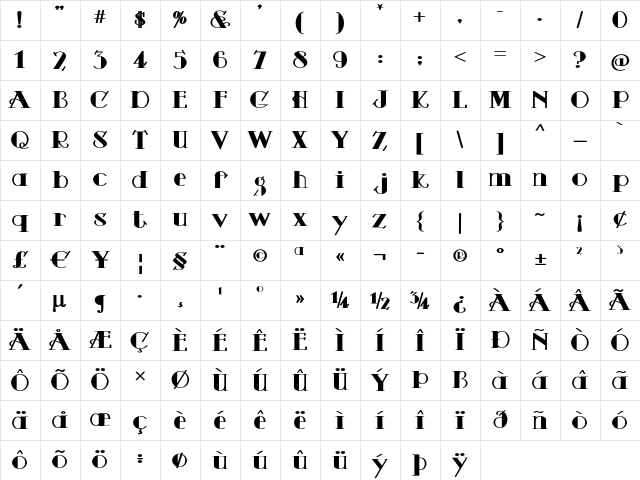
Harker Square Bold Free Font
Design Context for Harker Square
Harker Square is a composed and adaptable typeface that performs quietly and consistently across a wide range of design contexts. Its bold stroke weight gives it real presence on the page.